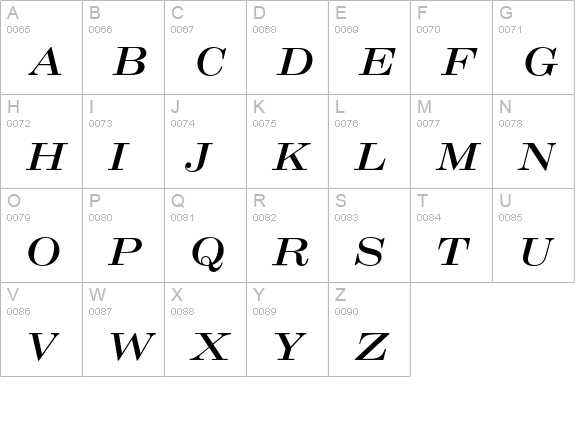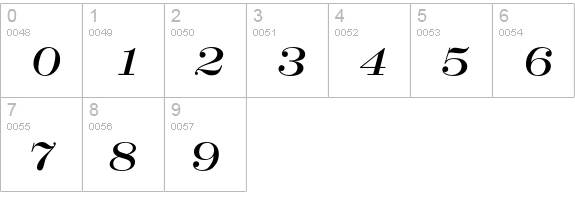
FC-CrawModern-Italic Font Details
FC-CrawModern-Italic is a distinctive, italic variant in the FC typeface family \xE2\x80\x94 well suited to design and typography projects.
Introducing FC-CrawModern-Italic, a sleek and elegant font designed to bring a modern touch to your projects. With its unique italic style, this font is perfect for adding a sophisticated flair to any design. Whether you're creating logos, branding materials, or social media graphics, FC-CrawModern-Italic is sure to make a bold statement. Best of all, this font is completely free to download at FontsMarket.com. Don't miss out on the opportunity to enhance your designs with this versatile and stylish typeface. Download FC-CrawModern-Italic today and elevate your creative projects to the next level.